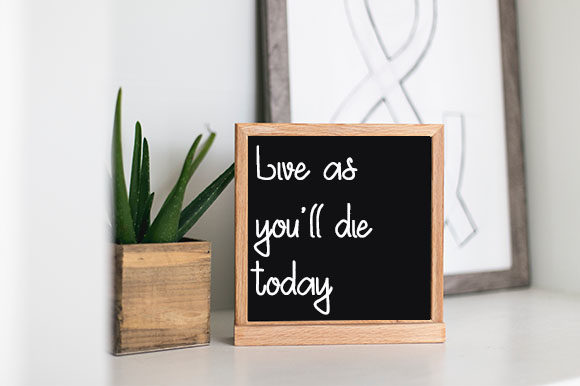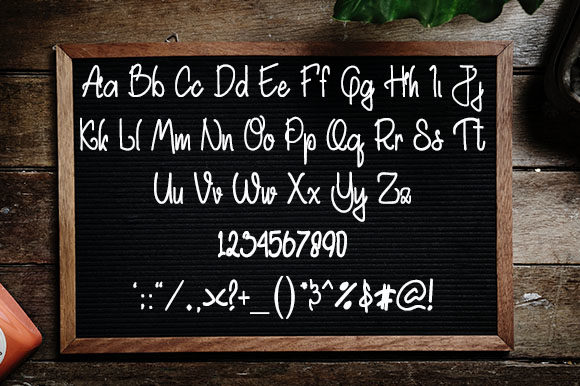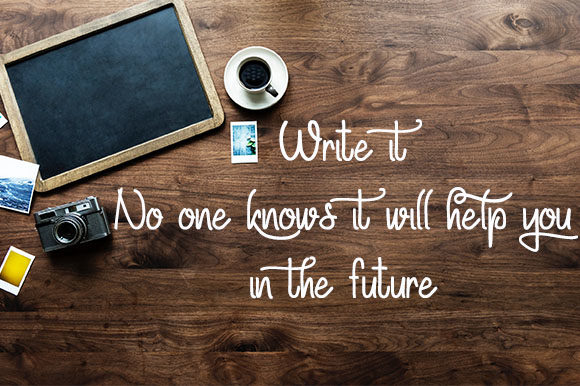
Akhadias Font
About Akhadias Font
The Akhadias is a beautiful handwritten script. It has an elegant and feminine style which makes it perfect for giving your design an upscale and chic look.